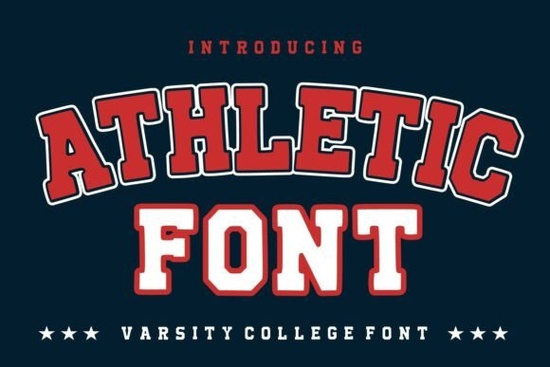
Athletic Font is a standout choice for anyone looking to add a bold, energetic vibe to their designs. This varsity-style display typeface draws inspiration from classic college lettering, championship jerseys, and vintage athletic branding. Its strong geometric shapes and traditional details make it perfect for sports-related projects, but it also works well in other creative areas like educational branding and retro apparel. Whether you're designing team logos, social media graphics, or promotional materials, Athletic Font brings a sense of strength and confidence to every project.
One of the key strengths of Athletic Font is its versatility. It’s not just limited to sports applications. You can use it for school events, graduation projects, or even modern vintage designs. The font’s distinctive collegiate character helps create a strong identity while keeping a timeless appeal. This makes it ideal for designers who want to convey energy and professionalism without sacrificing style.
If you’re working on a sports-themed project, Athletic Font is an excellent fit. It’s great for football team graphics, basketball jerseys, baseball uniforms, and esports logos. The bold strokes and dynamic look of the font ensure that your designs stand out. It also works well for championship merchandise and vintage-inspired sports posters. The combination of tradition and contemporary design gives it a unique edge that sets it apart from other fonts.
Why choose Athletic Font for your next project?
Athletic Font is designed with both visual impact and readability in mind. Its bold construction ensures that it remains legible even at larger sizes, making it perfect for headlines and logos. At the same time, the traditional varsity styling adds authenticity and charm. This balance between form and function is what makes the font so appealing to designers across different industries.
How to use Athletic Font effectively
When using Athletic Font, consider the context of your design. For sports branding, it works best as a headline or logo font. On social media graphics, it can draw attention and add a sense of energy. In apparel designs, it can help create a strong visual identity for teams or brands. The font’s bold nature means it can dominate a design without overwhelming it, as long as it’s used thoughtfully.
It’s also important to pair Athletic Font with complementary elements. For example, using it alongside a clean sans-serif font can create a balanced look. If you’re designing for print, make sure to test the font at different sizes to ensure it remains readable. For digital use, check how it appears on various devices and backgrounds to maintain consistency.
Whether you're a designer, crafter, print-on-demand seller, small business owner, or creative hobbyist, Athletic Font offers a powerful way to express energy and style. Its bold, varsity-inspired look is perfect for a wide range of projects, from sports branding to retro apparel. With its strong visual impact and versatile applications, it’s a valuable addition to any design toolkit.
Before you start using Athletic Font, take some time to experiment with different layouts and combinations. Test it in various contexts to see how it performs. This will help you get the most out of the font and ensure it meets your specific design goals.